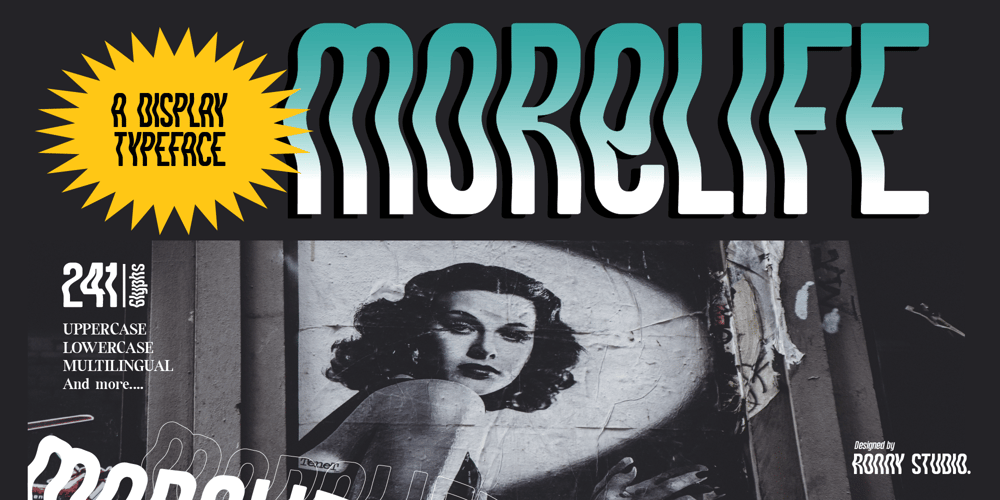
Morelife
Morelife font
Morelife Font Family was designed by Rony Rizki Jaya and published by Ronny Studio. Morelife contains 1 styles and family package options. Morlife is a solid & solid typeface with a unique form of the 90s era. This typeface is perfect for event posters, magazine covers, hipster fashion brands, t-shirts, totes, quotes, or stylish text overlays onto any background image.Files include: TrueType (.ttf) Open type (.otf) Features : Lowercase & Uppercase numbers and punctuation multilingual alternates PUA encoded Please contact us if you have any questions. Enjoy Crafting and thanks for supporting us! :)Thank you